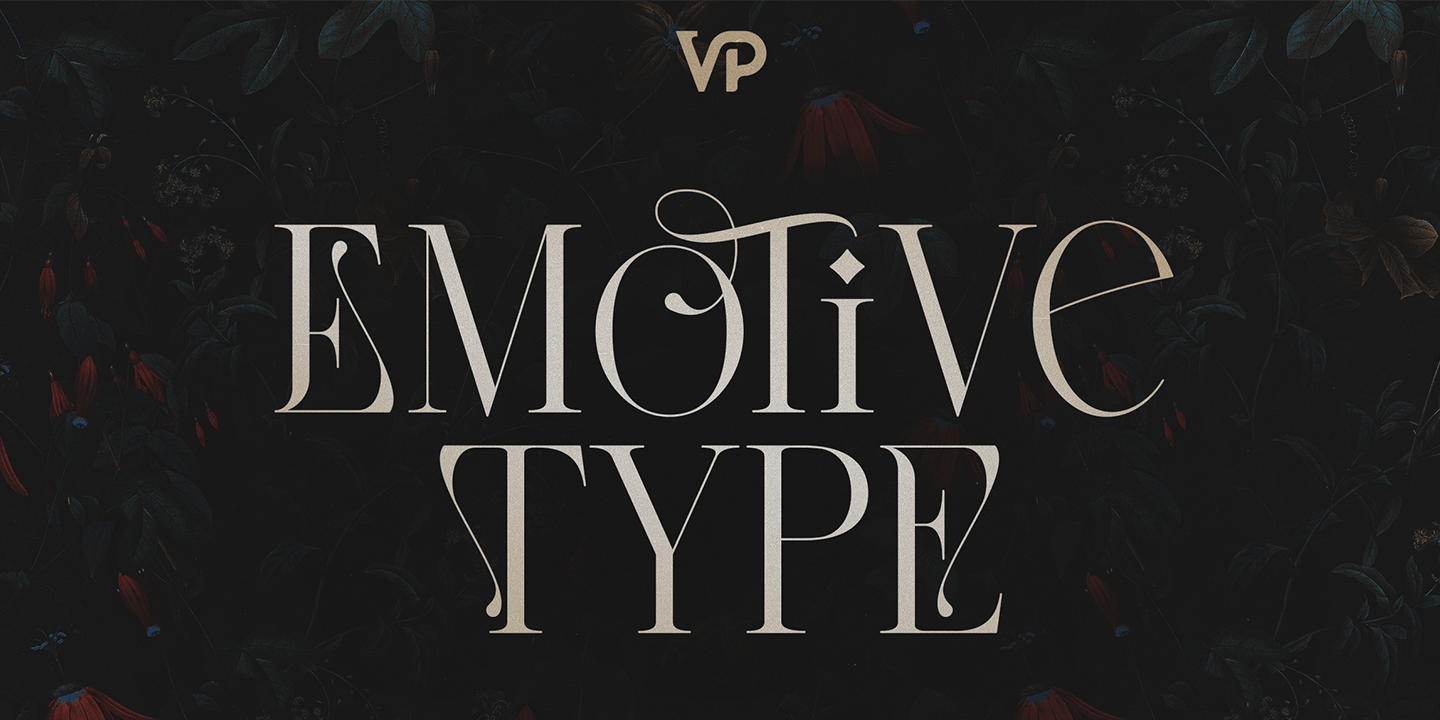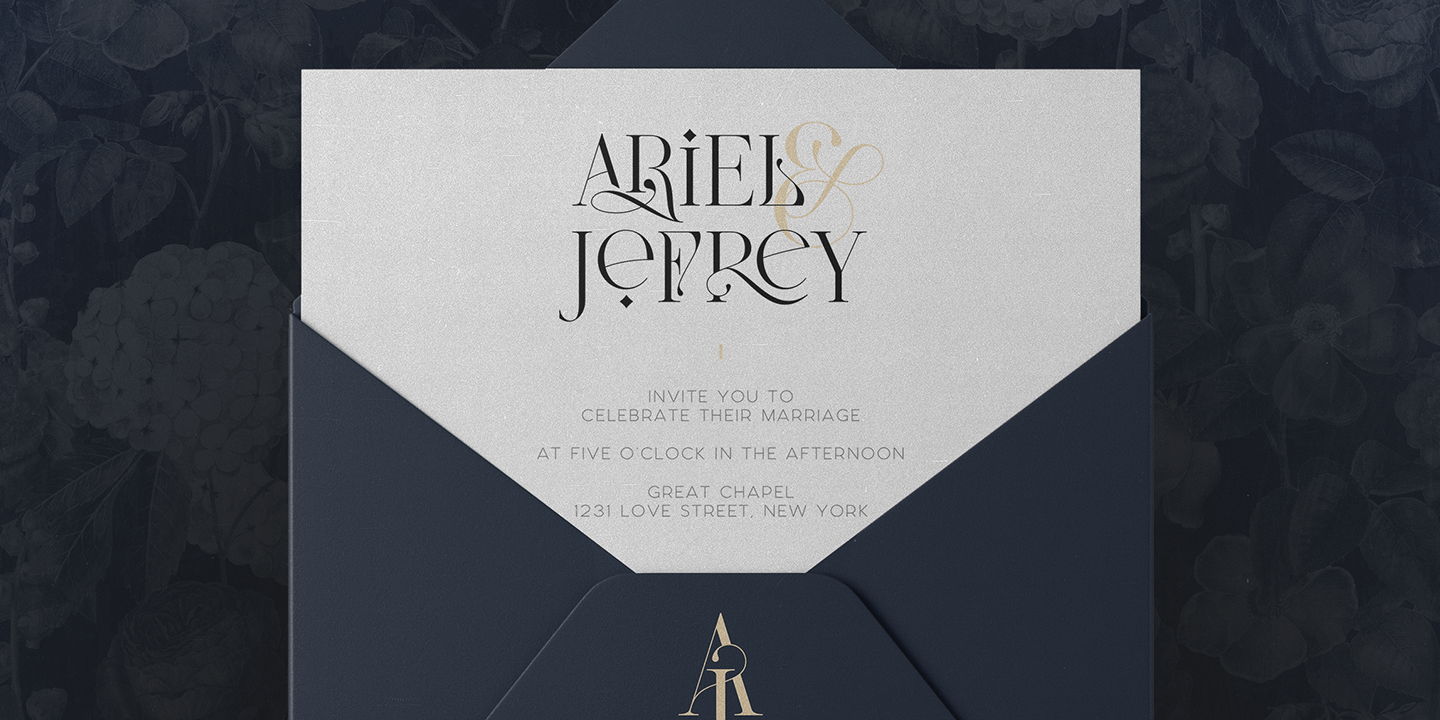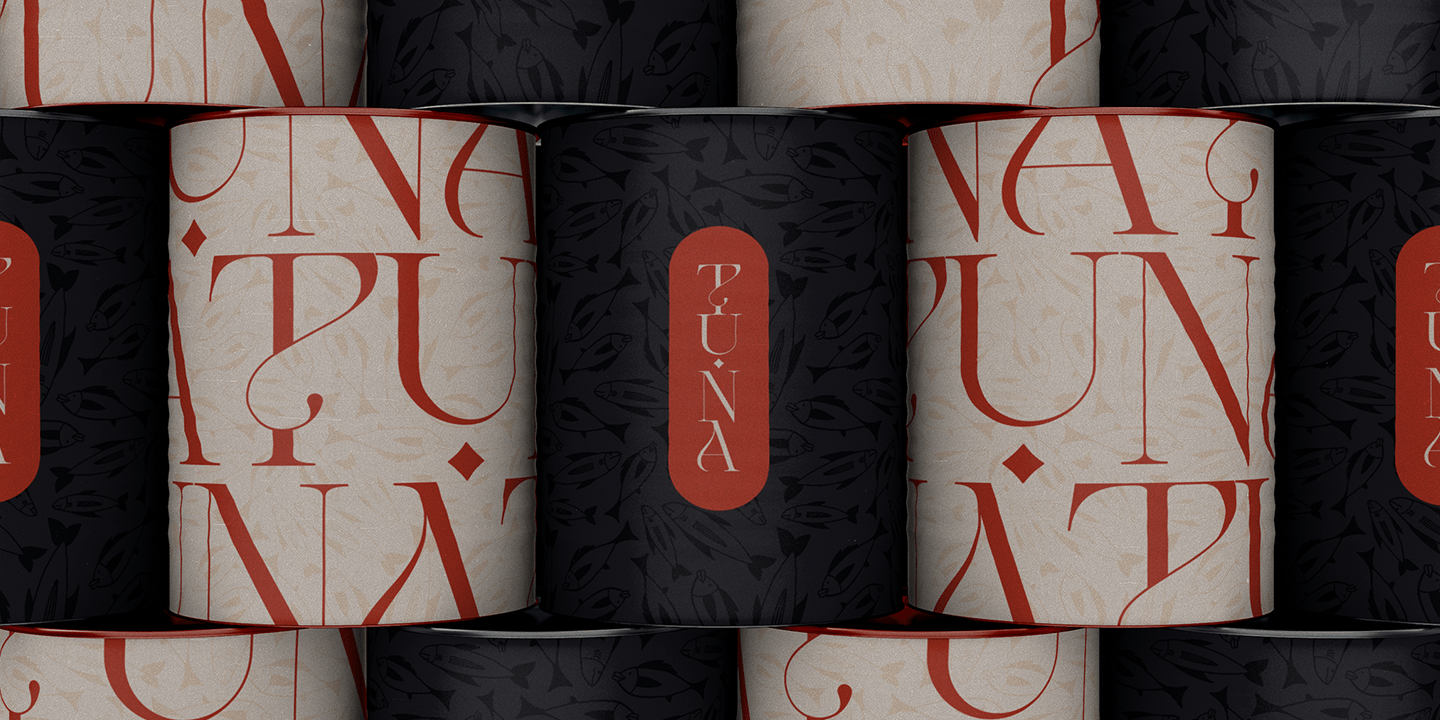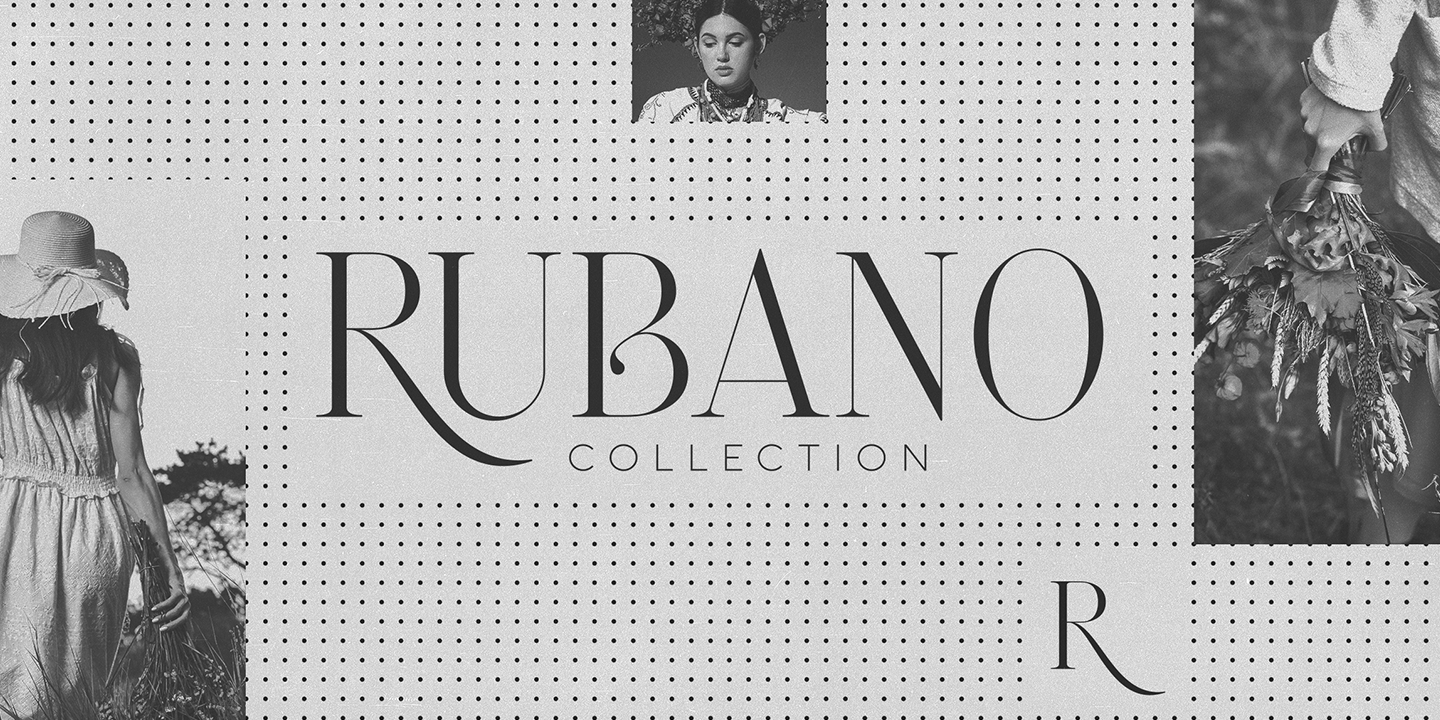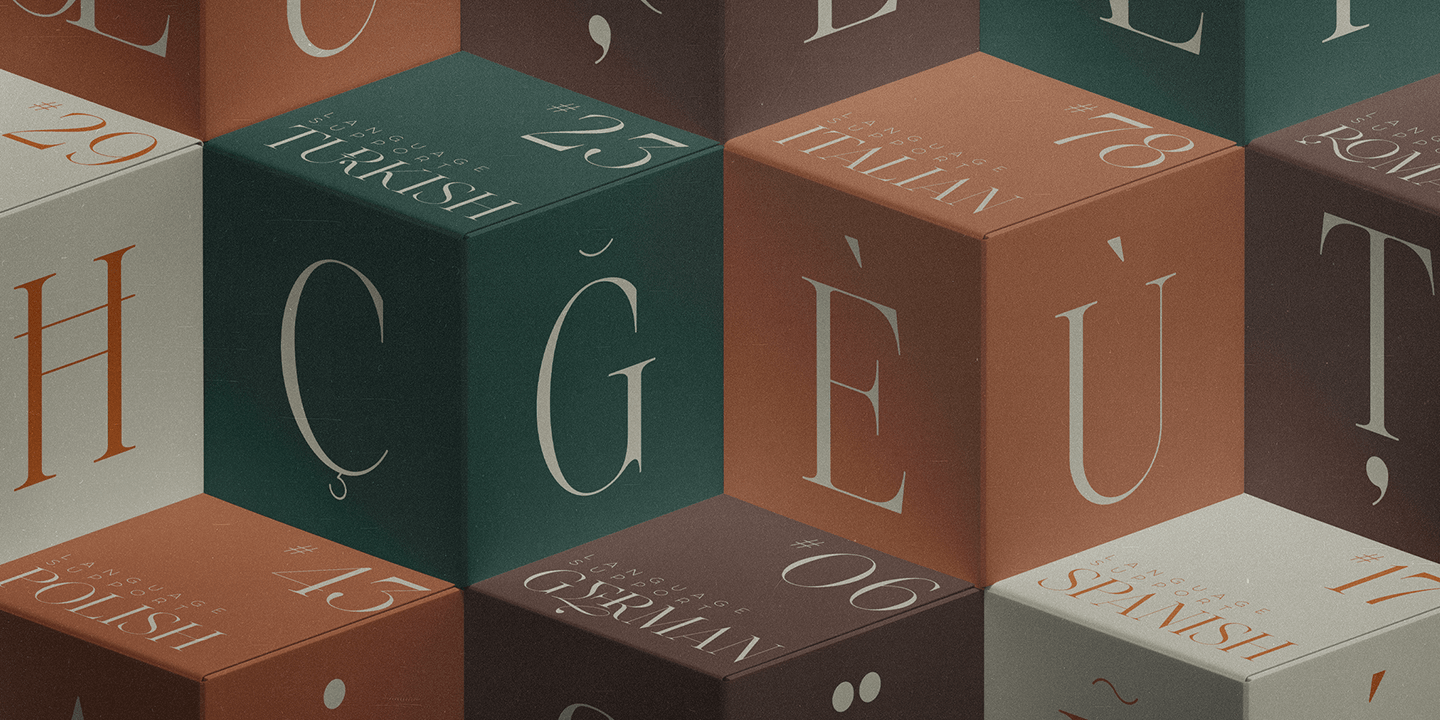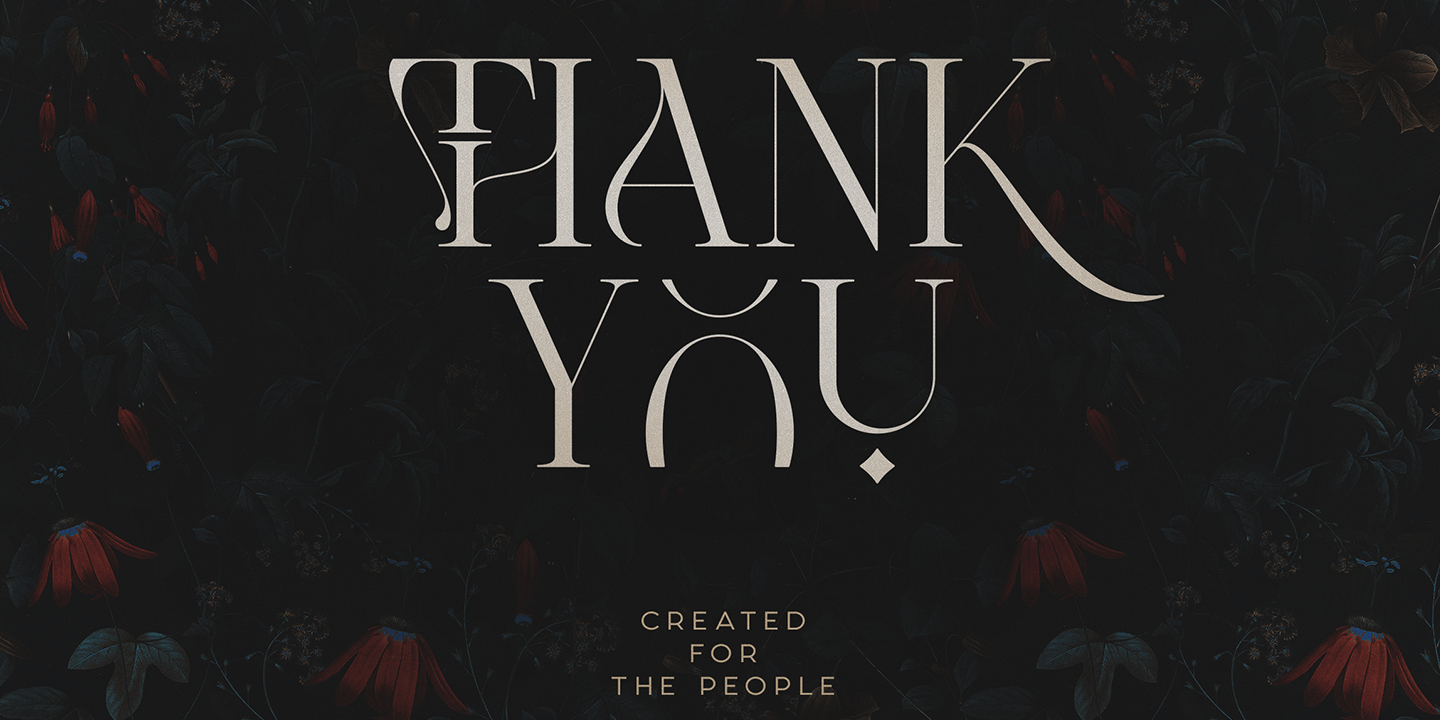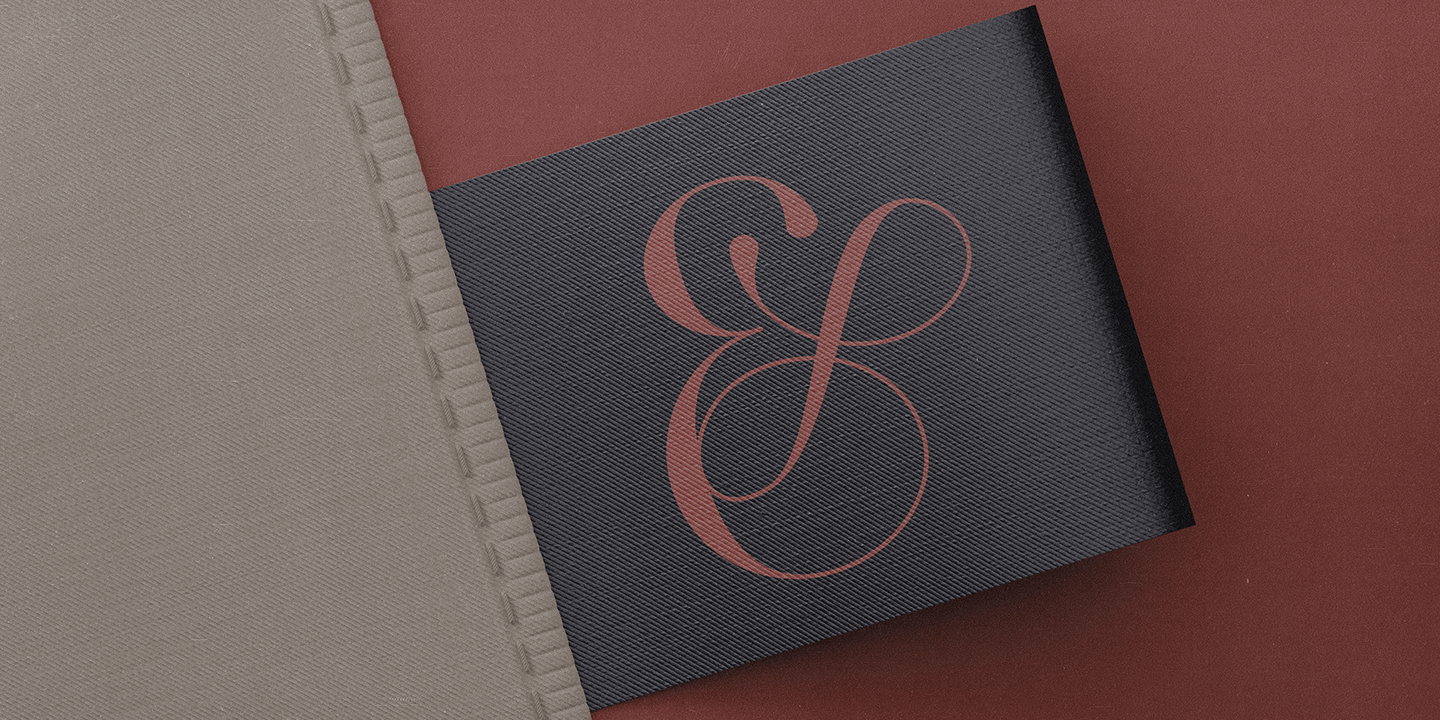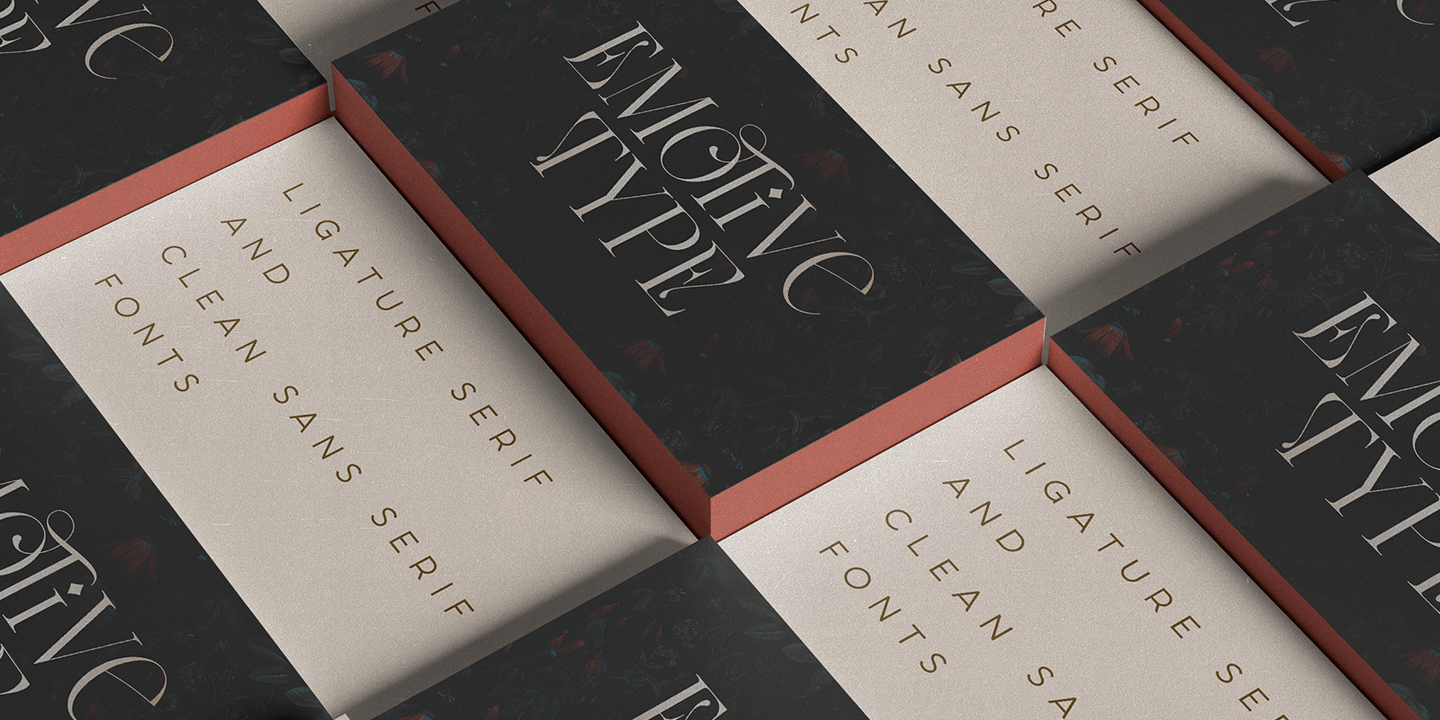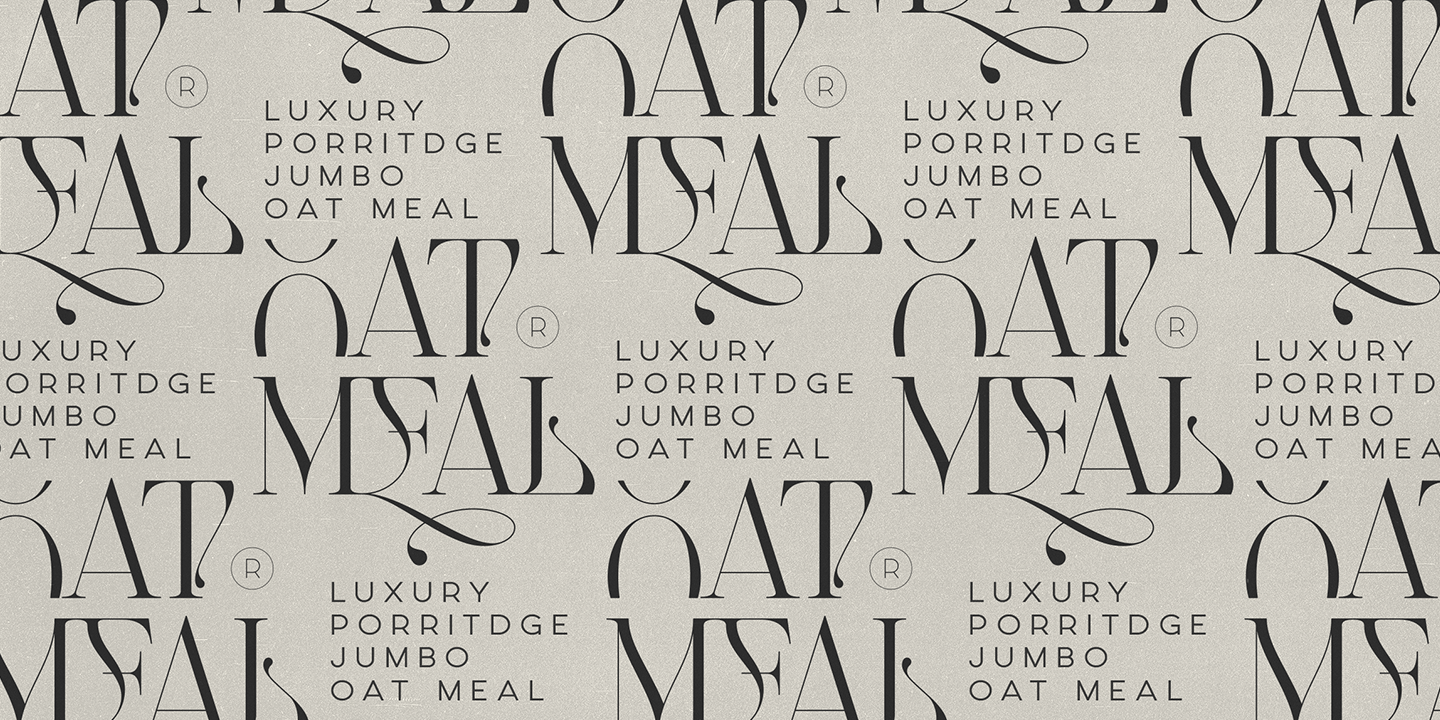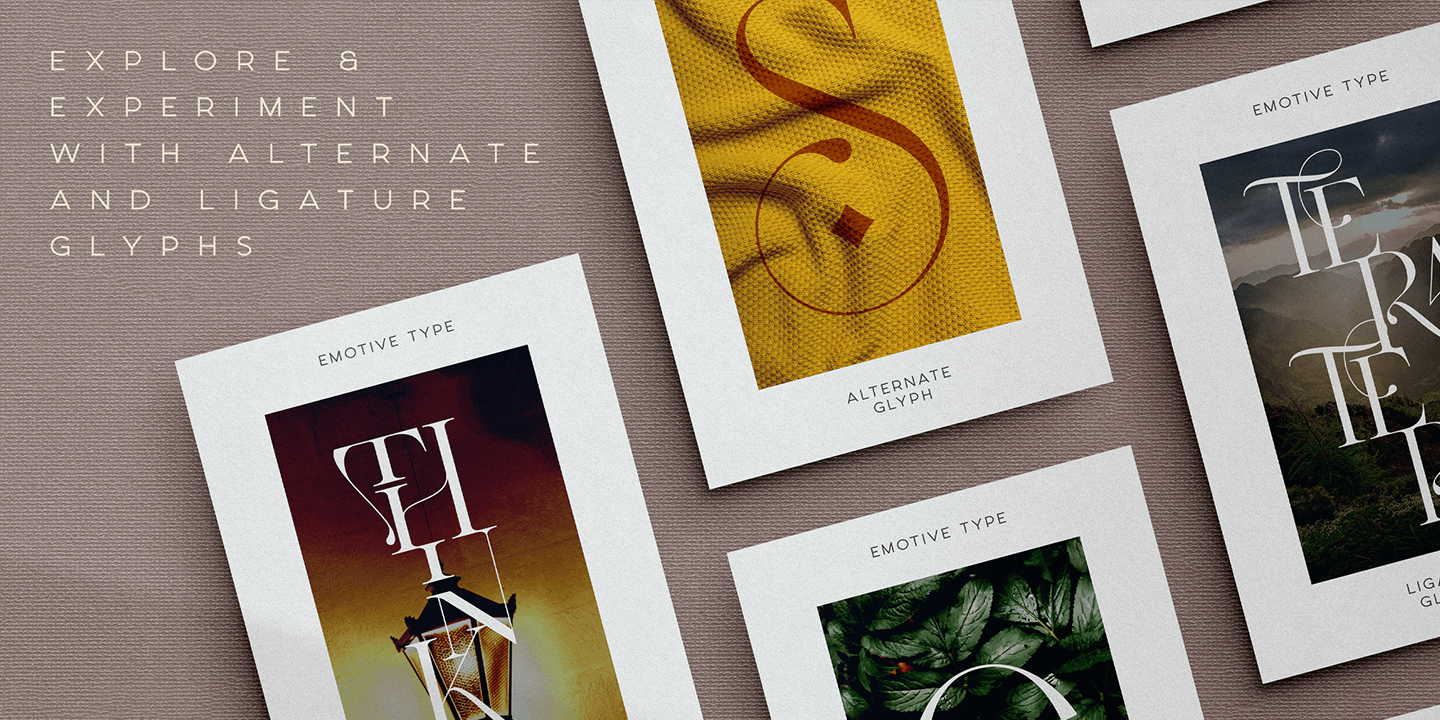
Emotive Type
Emotive Type is a sophisticated serif font designed with an emphasis on elegance and versatility. Its rich set of alternate and ligature glyphs enables you to create dynamic, high-end typographic designs. Alongside the serif, it includes six clean sans-serif fonts, making it a versatile choice for branding, packaging, and editorial design. Supporting 87 languages, Emotive Type caters to a broad, global audience. The font reflects luxurious and expressive vibe, ideal for high-end, refined, and artistic design projects.